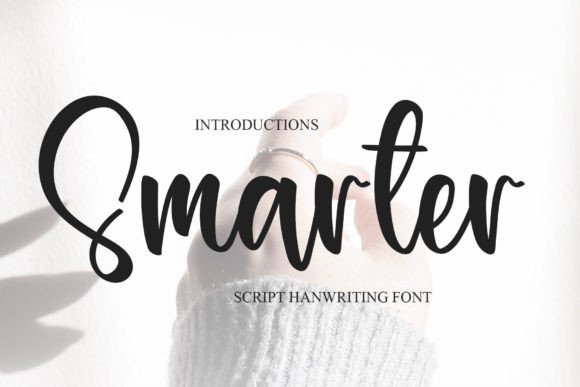
Unleash Creativity: Introducing Smarter, the Enchanting Script Font That Will Captivate Your Projects
In a world of monotonous typefaces, Smarter emerges as a refreshing oasis, a font crafted with elegance and charm to elevate your creative projects. This mesmerizing script font, the brainchild of the talented YanStudio, is designed to ignite your imagination and add a touch of magic to your designs.
With its graceful curves and flowing strokes, Smarter exudes a timeless beauty, reminiscent of vintage calligraphy. Each letter is meticulously crafted to mimic the natural movement of a skilled penman, resulting in a font that is both visually stunning and incredibly versatile.
Step into a Realm of Elegance: Explore the Endless Possibilities with Smarter
Whether you're a seasoned designer or just starting your creative journey, Smarter is the perfect companion for a wide range of projects. Its inherent versatility makes it suitable for a myriad of applications, including:
- Logos: Create distinctive and memorable logos that exude sophistication and charm.
- Branding Projects: Infuse your branding efforts with a touch of elegance that sets you apart from the competition.
- Labels: Design eye-catching labels that add an extra layer of charm to your products.
- Photography: Elevate your photographs with Smarter's delicate touch, adding an artistic flair that captivates viewers.
- Watermarks: Protect your creative work with a unique and stylish watermark that showcases your artistry.
- Special Events: Bring a touch of magic to invitations, cards, and other special event materials, creating memories that will last a lifetime.
Unleash Your Creativity: Make Smarter Your Go-To Font for All Your Projects
Smarter is more than just a font; it's an invitation to express your creativity like never before. With its captivating beauty and boundless versatility, Smarter will transform your designs into masterpieces.
Don't settle for ordinary fonts that blend into the background. Embrace the allure of Smarter and let your projects shine with distinction and grace.